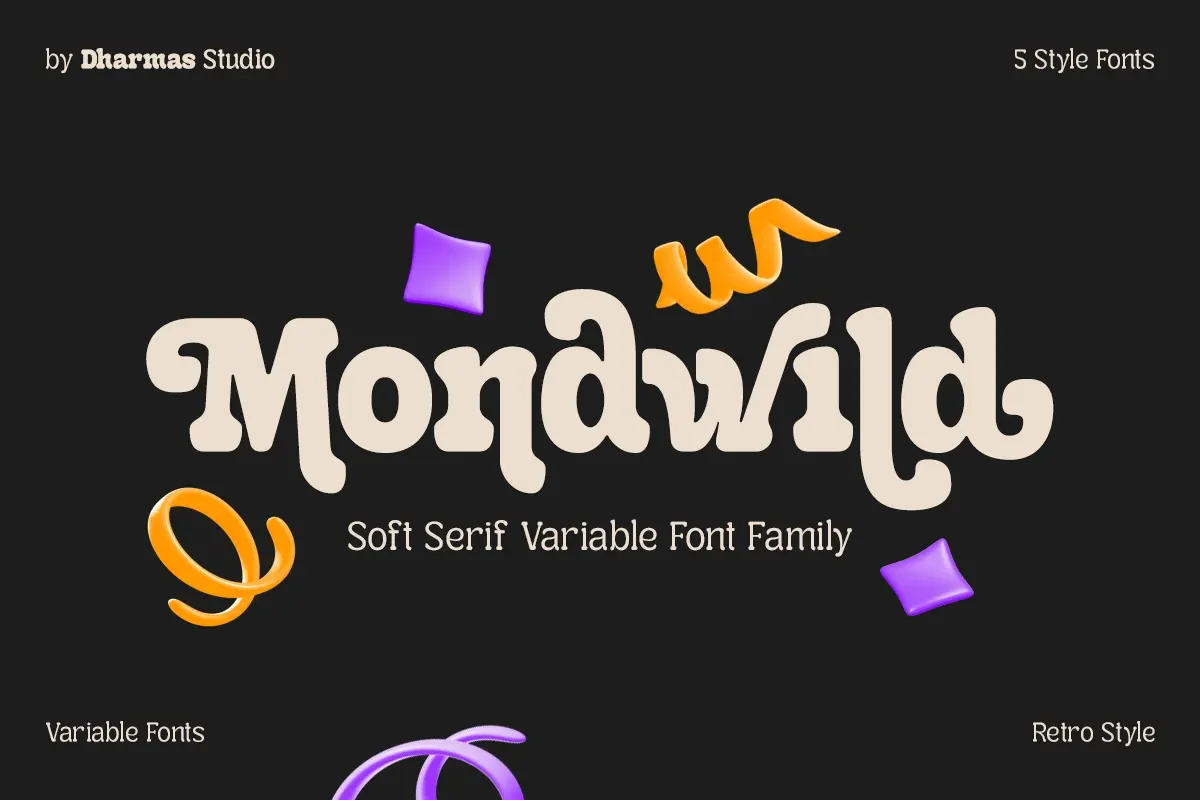
Mondwild – 7 Variable Modern Retro Font
Introducing Mondwild, a unique typeface that blends retro charm with modern sensibilities, creating a versatile font that captures both nostalgia and contemporary flair. Designed by Dharmas Studio, Mondwild offers a family of 7 styles: Extra Light, Light, Regular, Medium, Semi Bold, Bold, and Extra Bold, providing flexibility for both headline and body text usage.
Styles Included: Extra Light, Light, Regular, Medium, Semi Bold, Bold, Extra Bold
Character Set: Uppercase and lowercase letters, numerals, symbols, punctuation, and over 100 unique stylistic alternates
Language Support: Danish, English, Estonian, Filipino, Finnish, French, German, Indonesian, Italian, Norwegian, Portuguese, Spanish, Swedish, and more
Mondwild is ideal for branding, editorial work, web design, and any project requiring a touch of retro elegance. Its versatile styles and extensive character set make it suitable for various design applications.